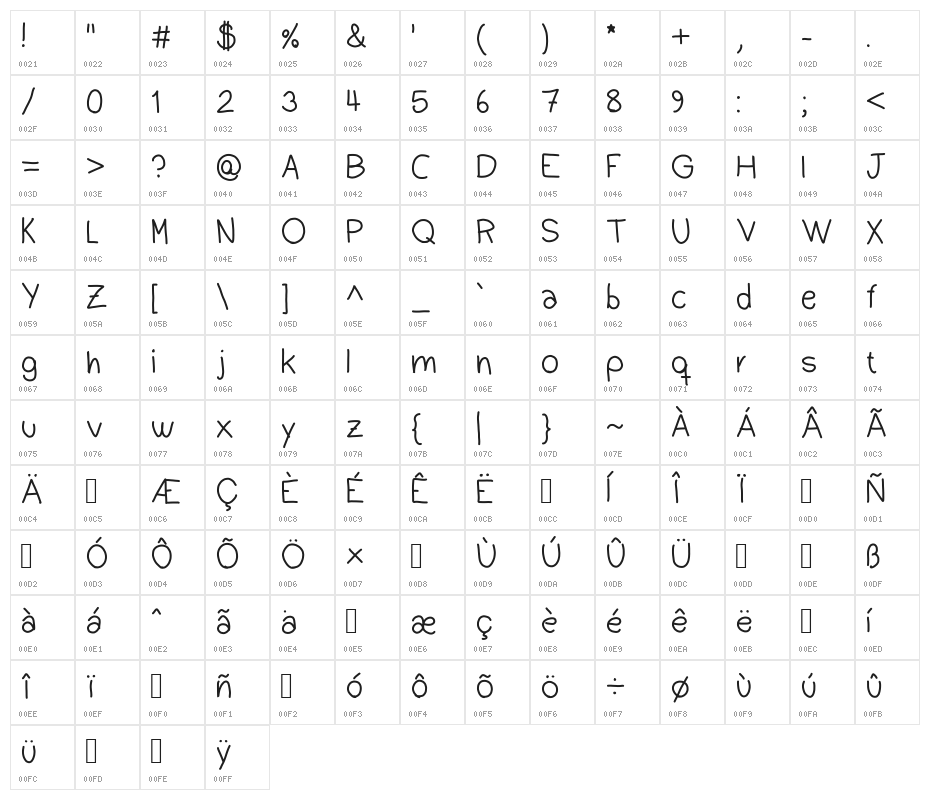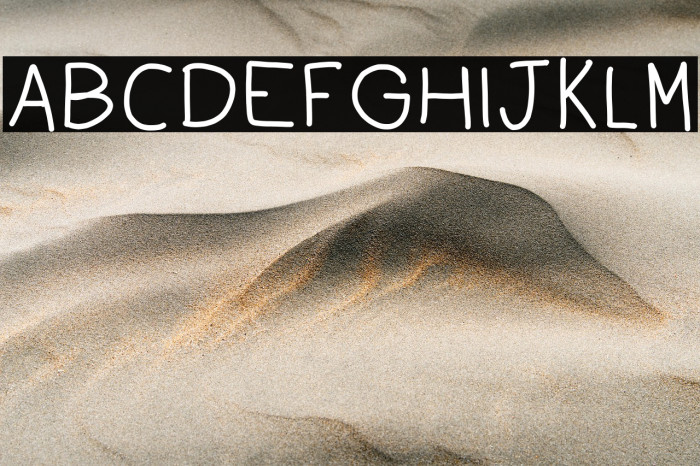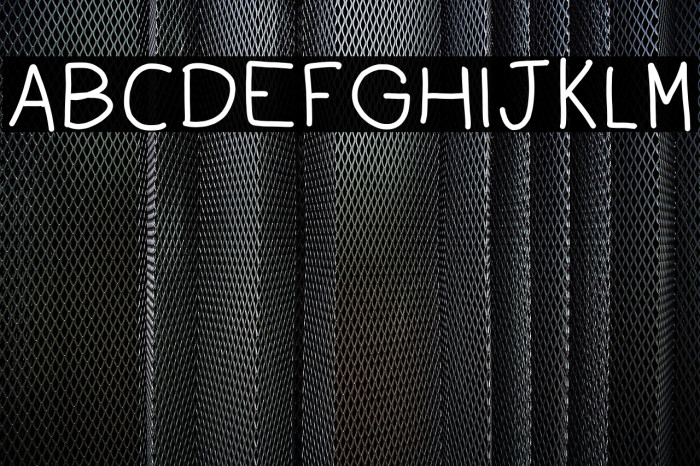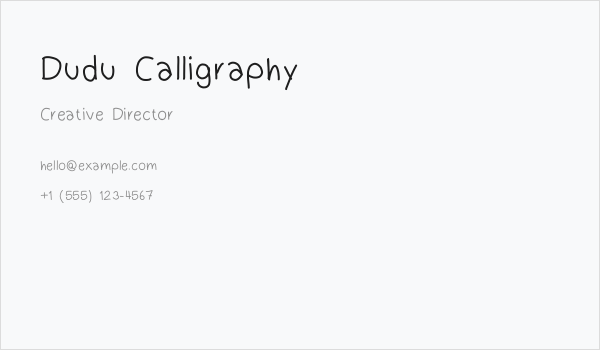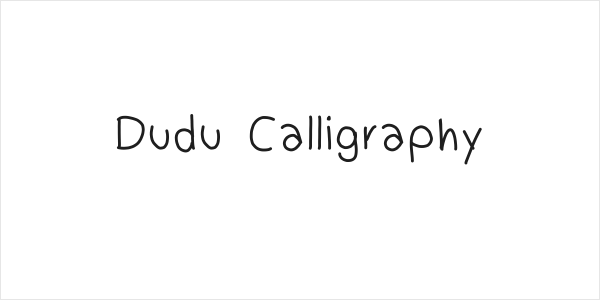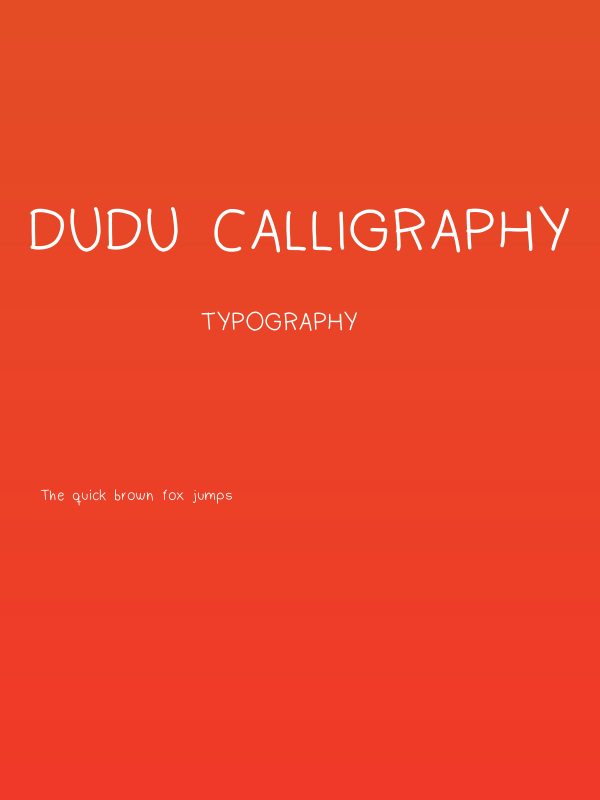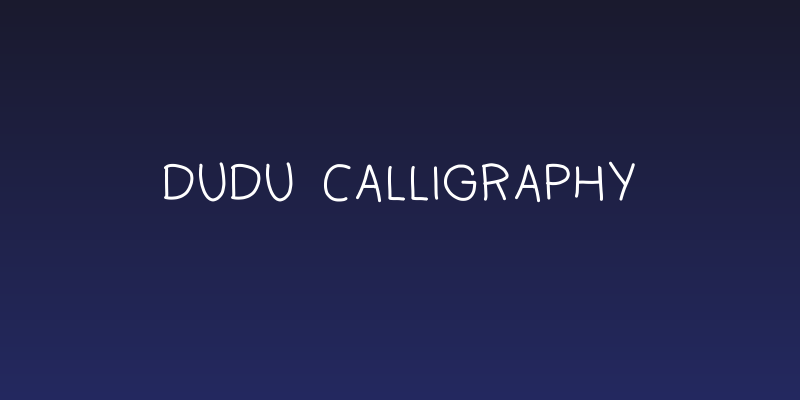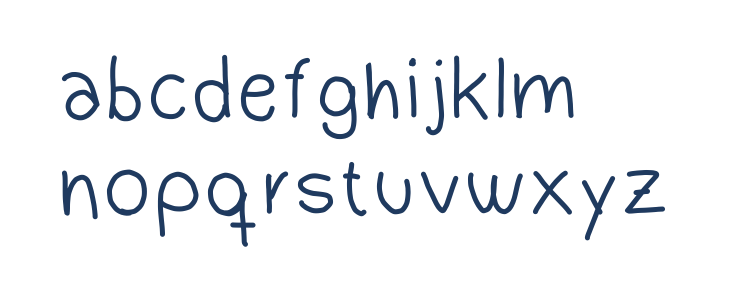
Dudu Calligraphy Font
Dudu Calligraphy Description
This font features a playful and casual handwritten style, characterized by its smooth curves and slightly irregular letterforms. The uppercase letters maintain a consistent height, while the lowercase letters exhibit a charming, informal appearance. The numerals are clear and easy to read, complementing the overall friendly aesthetic. Special characters are well-integrated, maintaining the font's cohesive look. This font's relaxed and approachable style makes it suitable for a variety of creative projects.